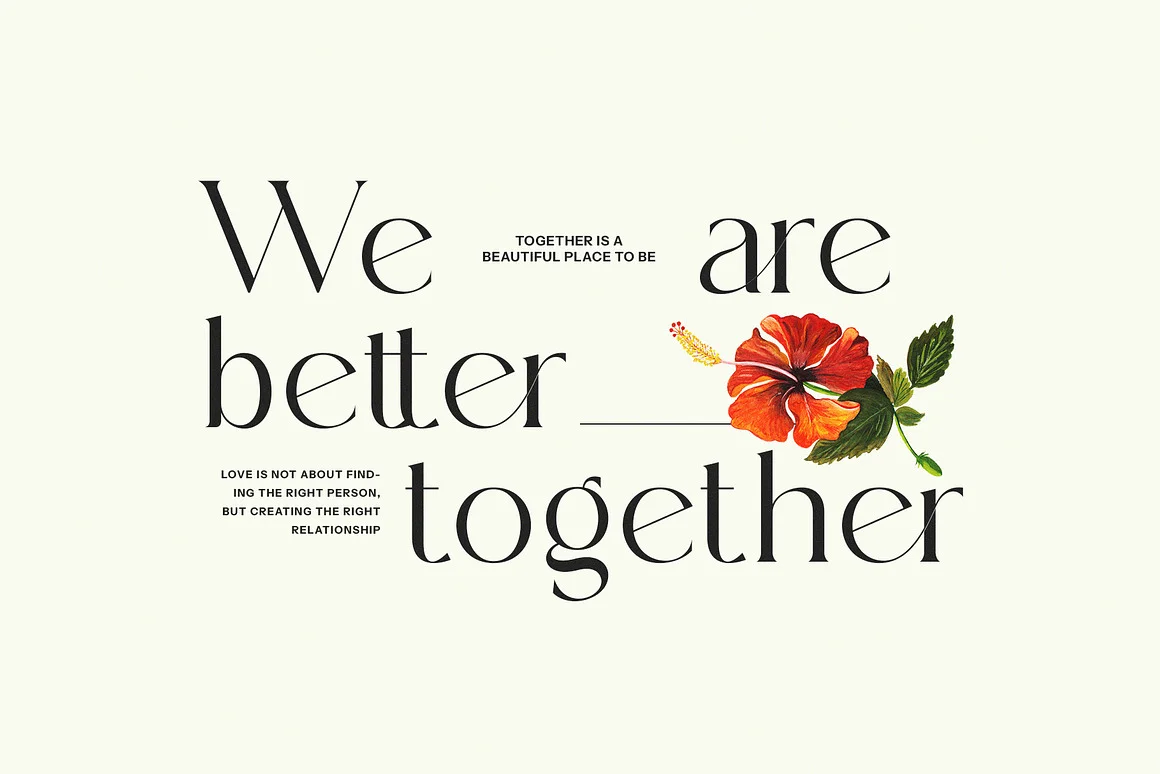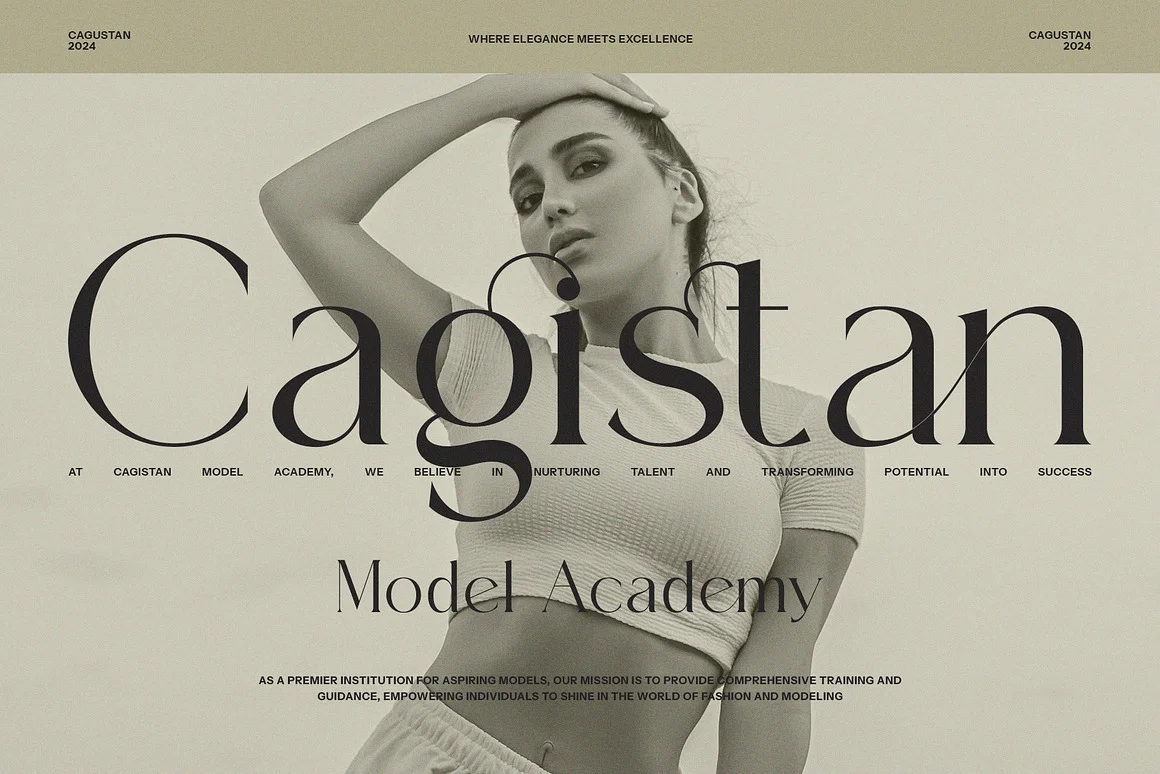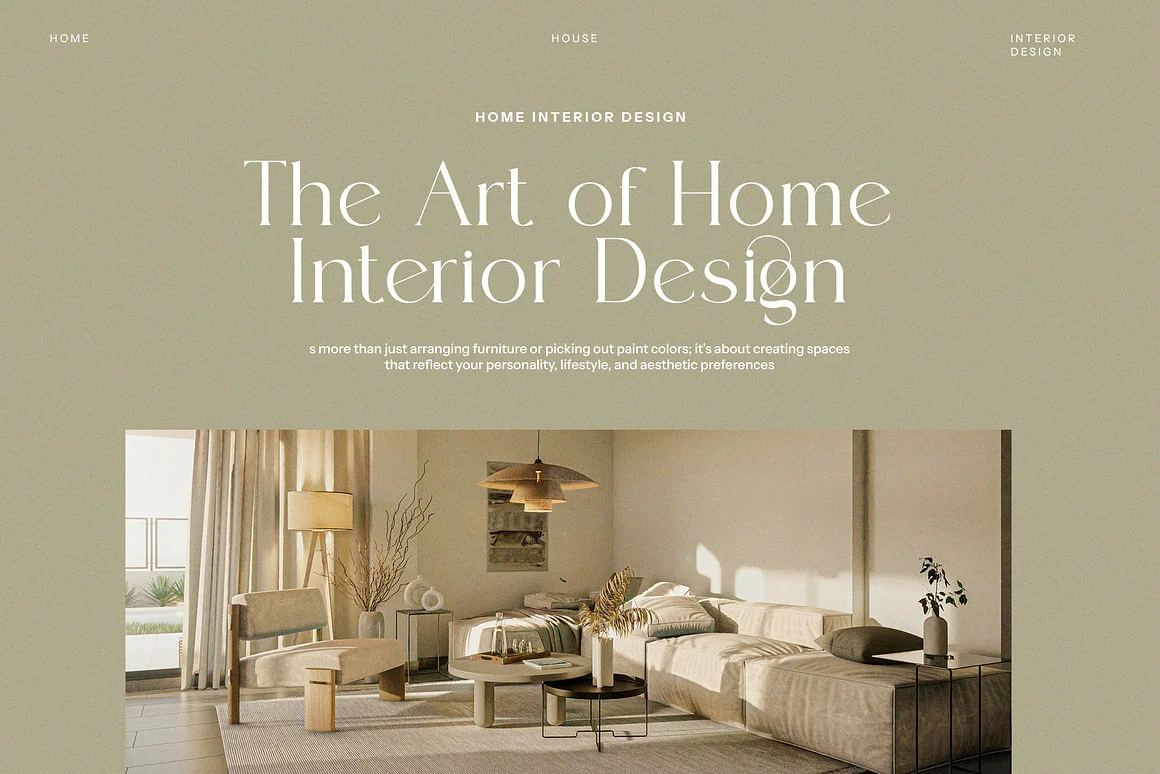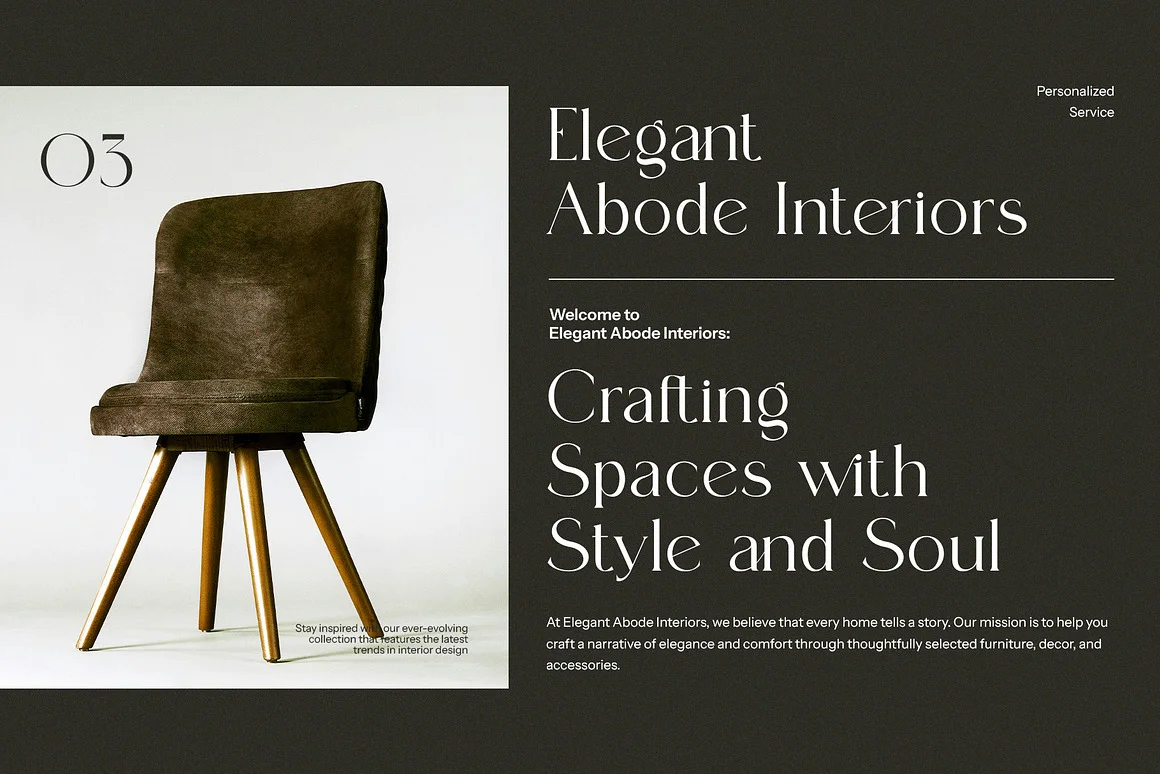
Mofllig Modern Ligature Serif Font
Few typefaces manage to balance visual harmony and precise spacing with genuine day-to-day practicality. Mofllig Modern Ligature Serif is one of them. The typeface brings a classically grounded sensibility to a broad range of creative disciplines, with controlled contrast that rewards close inspection that holds up whether the work is print-first or screen-first.
In practice, Mofllig Modern Ligature Serif proves particularly effective for packaging design, heritage branding, web design, signage systems, annual reports. Designers reaching for it find that the type decisions feel resolved rather than laboured — a useful quality when client timelines are tight.
The range of applications extends to product labels, magazine layouts, book covers, classical music programmes. That breadth is deliberate: the proportions and spacing were stress-tested across a wide range of mock briefs before the typeface was finalised.
Each character has been drawn with bracketed serifs and subtle optical corrections that prevent overshoot at display sizes. The contrast ratio between thick and thin strokes guarantees legibility in both print and high-resolution digital contexts.
At smaller sizes the design retains its character without becoming cluttered. This resilience across scales makes Mofllig Modern Ligature Serif equally suitable for a business card and a billboard — a useful property when assets must scale across a campaign.
Brand strategists building visual languages find Mofllig Modern Ligature Serif a reliable choice for projects that demand both personality and restraint. The design avoids the self-conscious quirkiness that dates quickly, settling instead for considered distinctiveness that holds up over time.